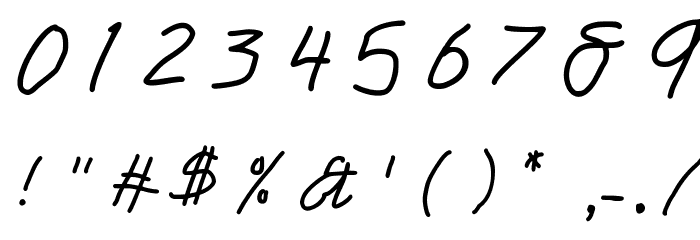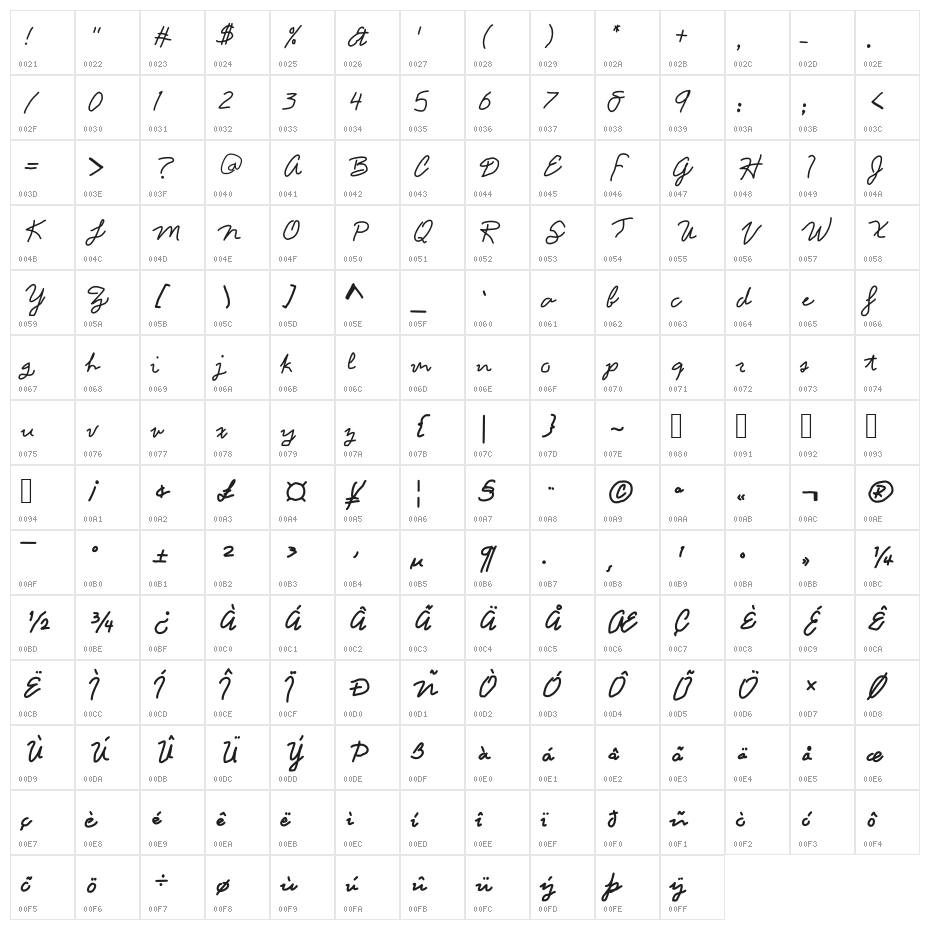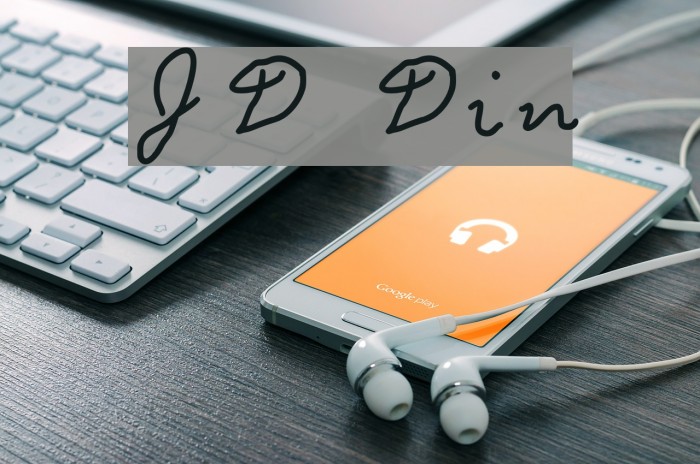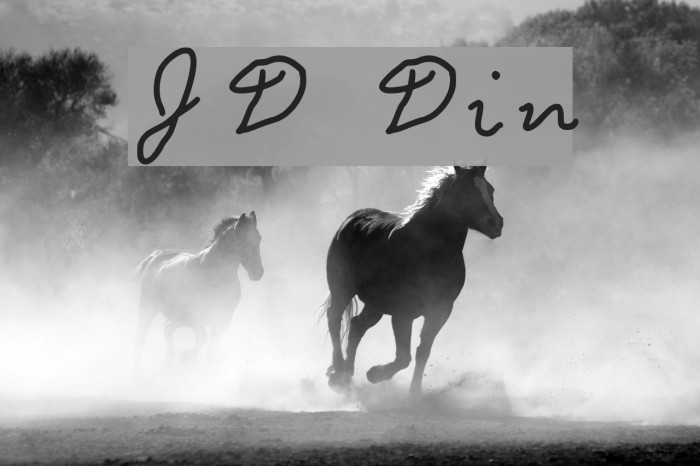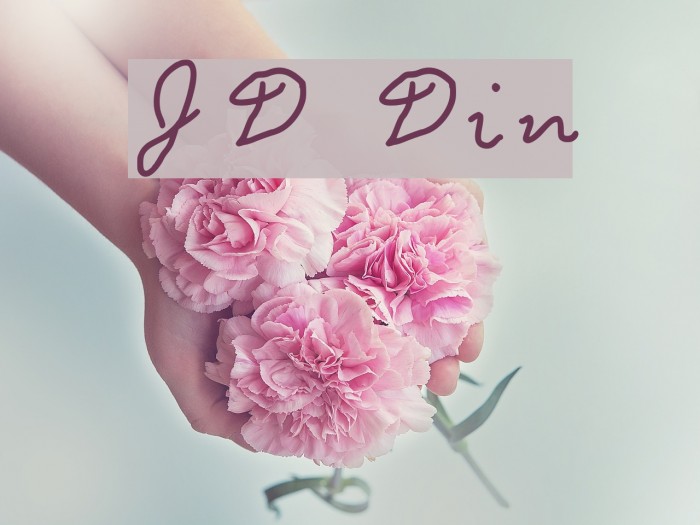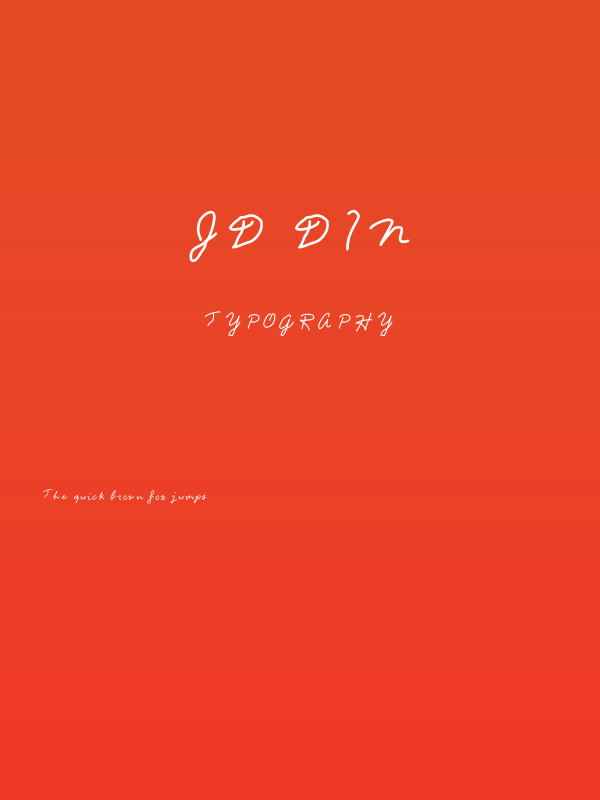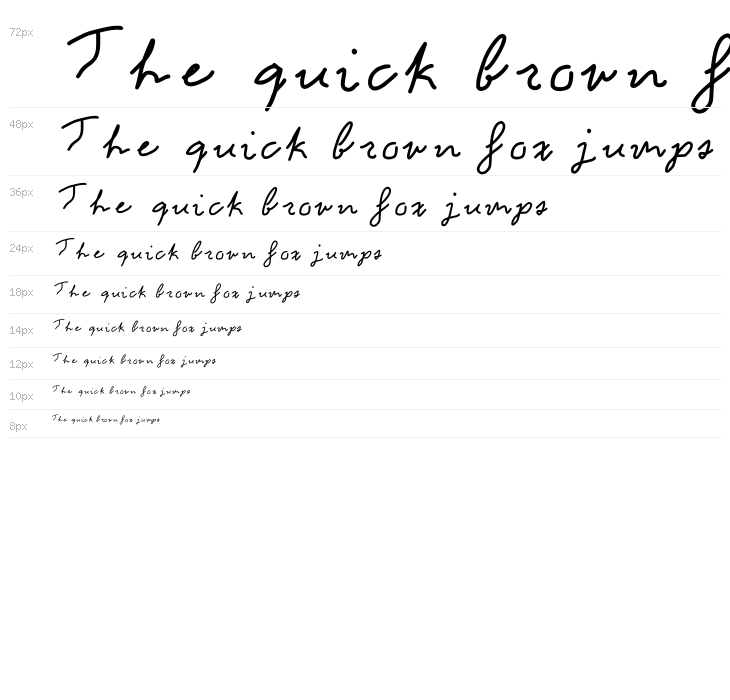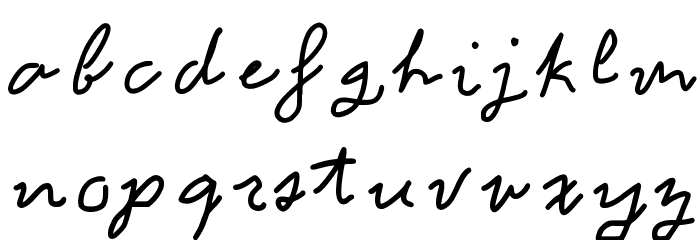
JD Din Font
JD Din Description
This font exhibits a charming handwritten style, characterized by its fluid and connected strokes that mimic natural handwriting. The uppercase letters maintain a consistent height and are elegantly slanted, giving a sense of movement and grace. The lowercase letters are similarly connected, with loops and curves that enhance the handwritten aesthetic. The numerals are distinct yet harmonious with the overall style, featuring rounded edges and a slight slant. Special characters are thoughtfully designed to match the flowing script, making this font versatile for various creative applications.
| Proposed Projects | Ideal for wedding invitations, personal branding, greeting cards, and artistic projects that require a personal touch. |